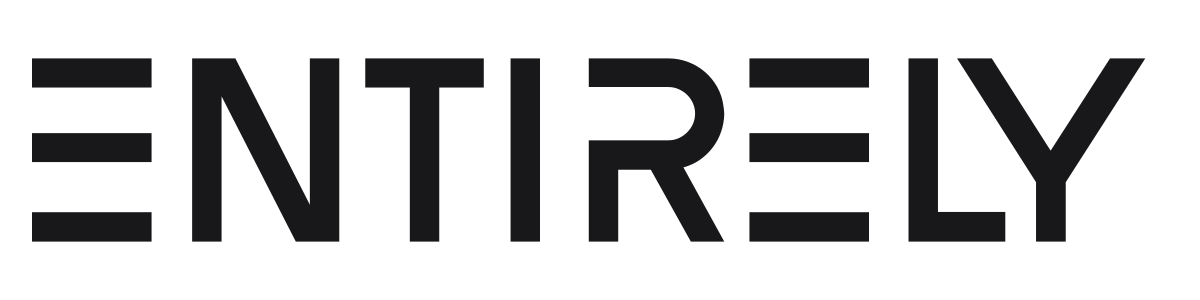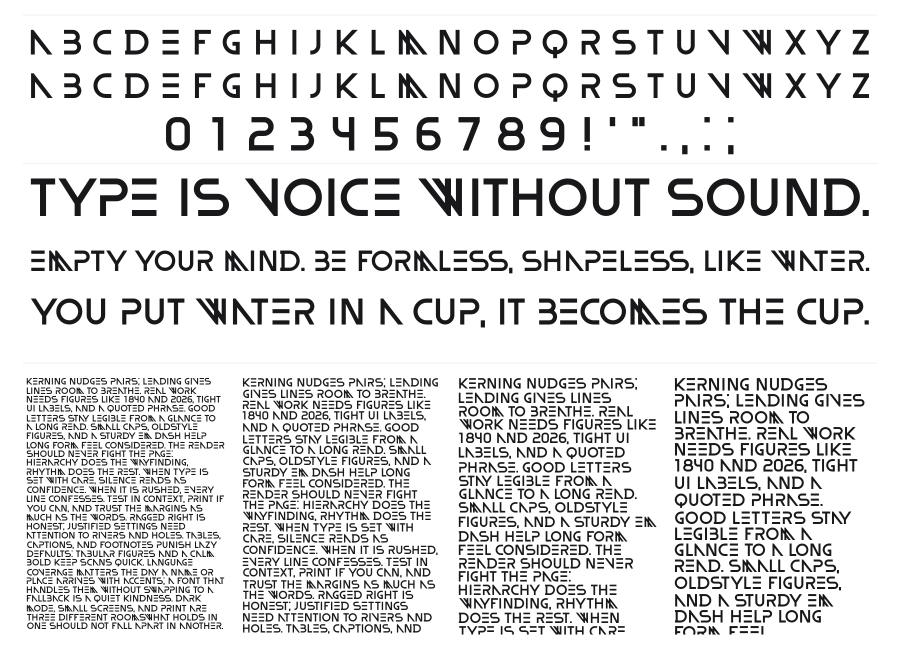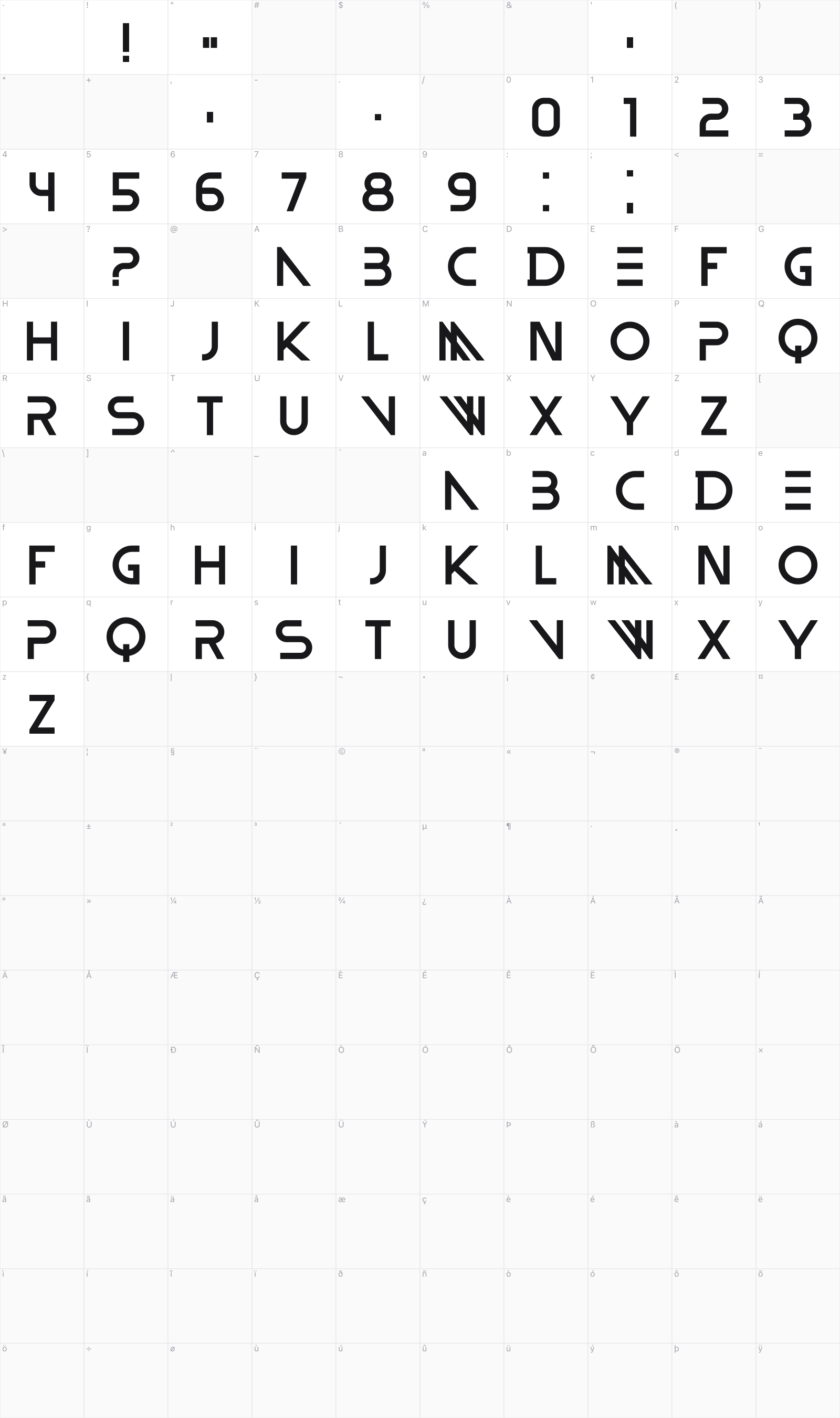
Entirely
Entirely is a wide geometric sans built from modular segments, with deliberate cuts and notches that give each character a deconstructed, almost schematic quality. The monoweight strokes and strict angular geometry create a cold, precise voice that reads immediately as futuristic. Strong at large sizes where the structural detail can be appreciated.